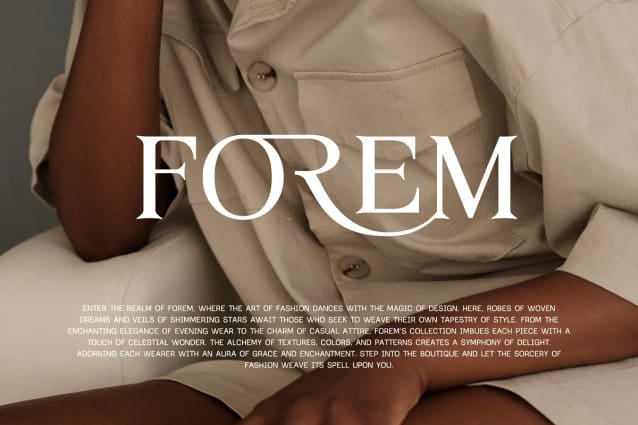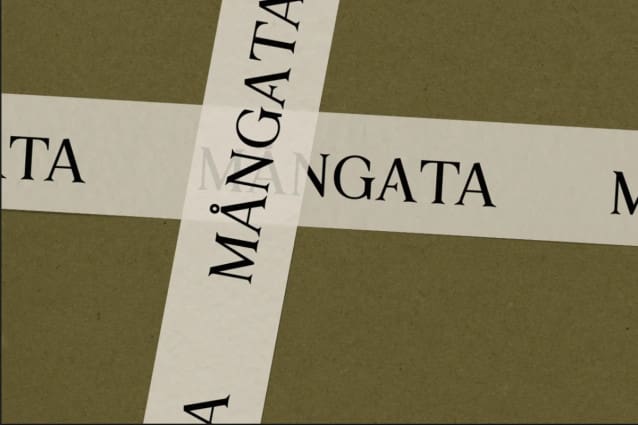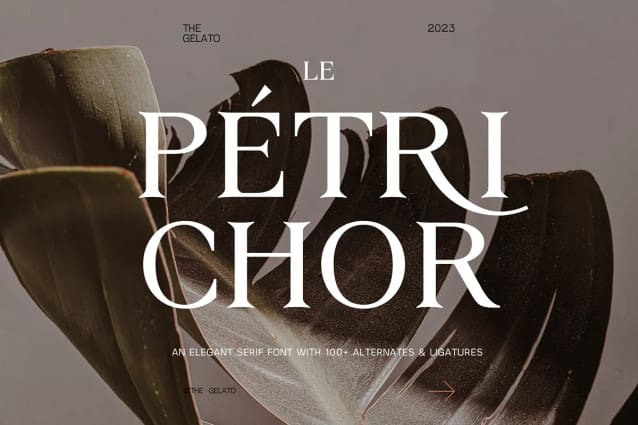
Le Pétrichor Font
Le Pétrichor Font is an Elegant Aesthetic Serif Font with 100+ Alternates & Ligatures that can be used as a Wedding Invitation Font, Elegant Branding Font, Luxury Brand Font, Classic Logo Font, Premium Packaging Font, Fashion Canva Elegant font, Unique Branding Font, Stylish Urban Font, Minimal Procreate Font, Typography Canva Font, Magazine Layout Font, Classy Logo Font, Minimal Branding Font
Perfectly suitable for numerous use such as quotations, banners, logos, product packaging, titles, headers, Business cards, menu lists, and invitation cards!